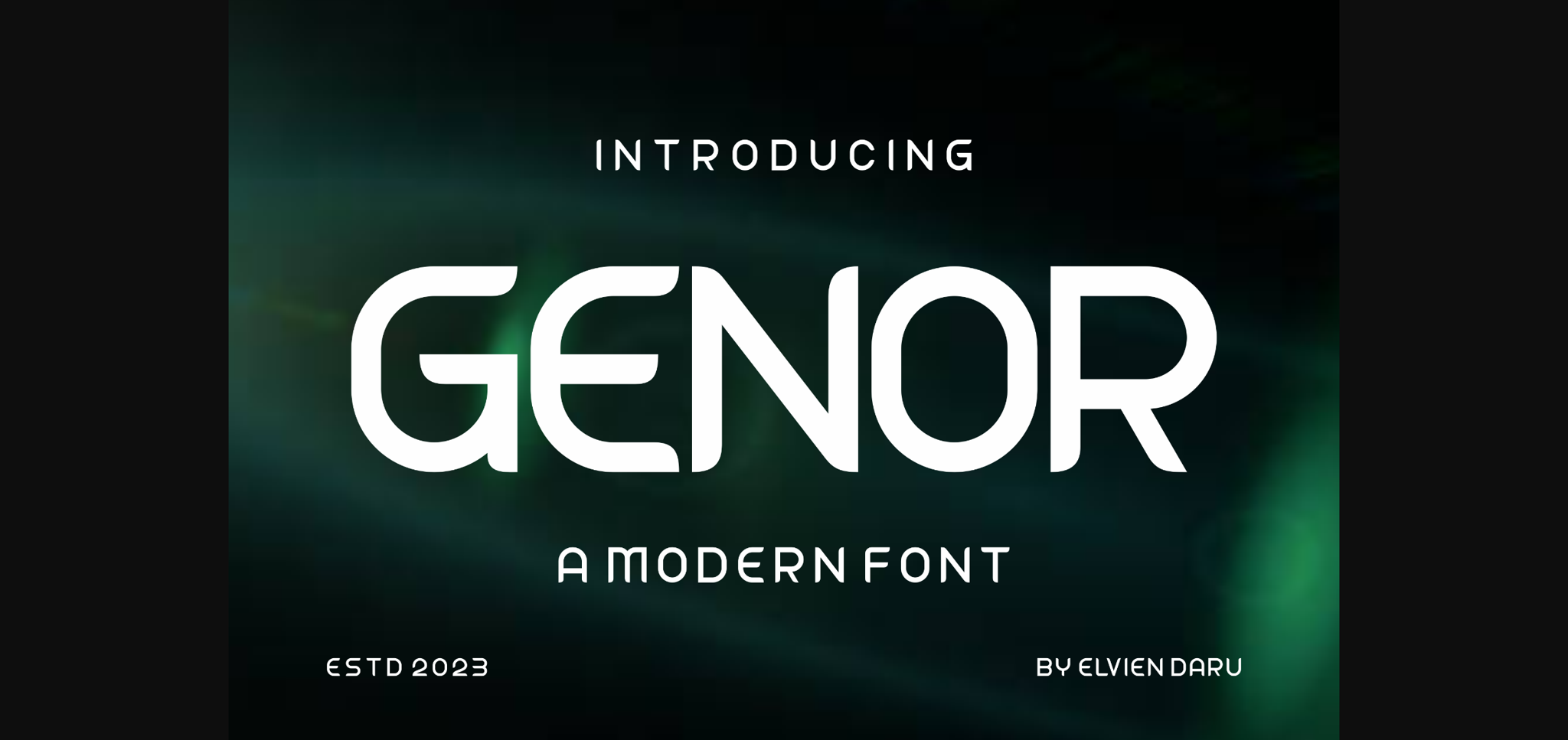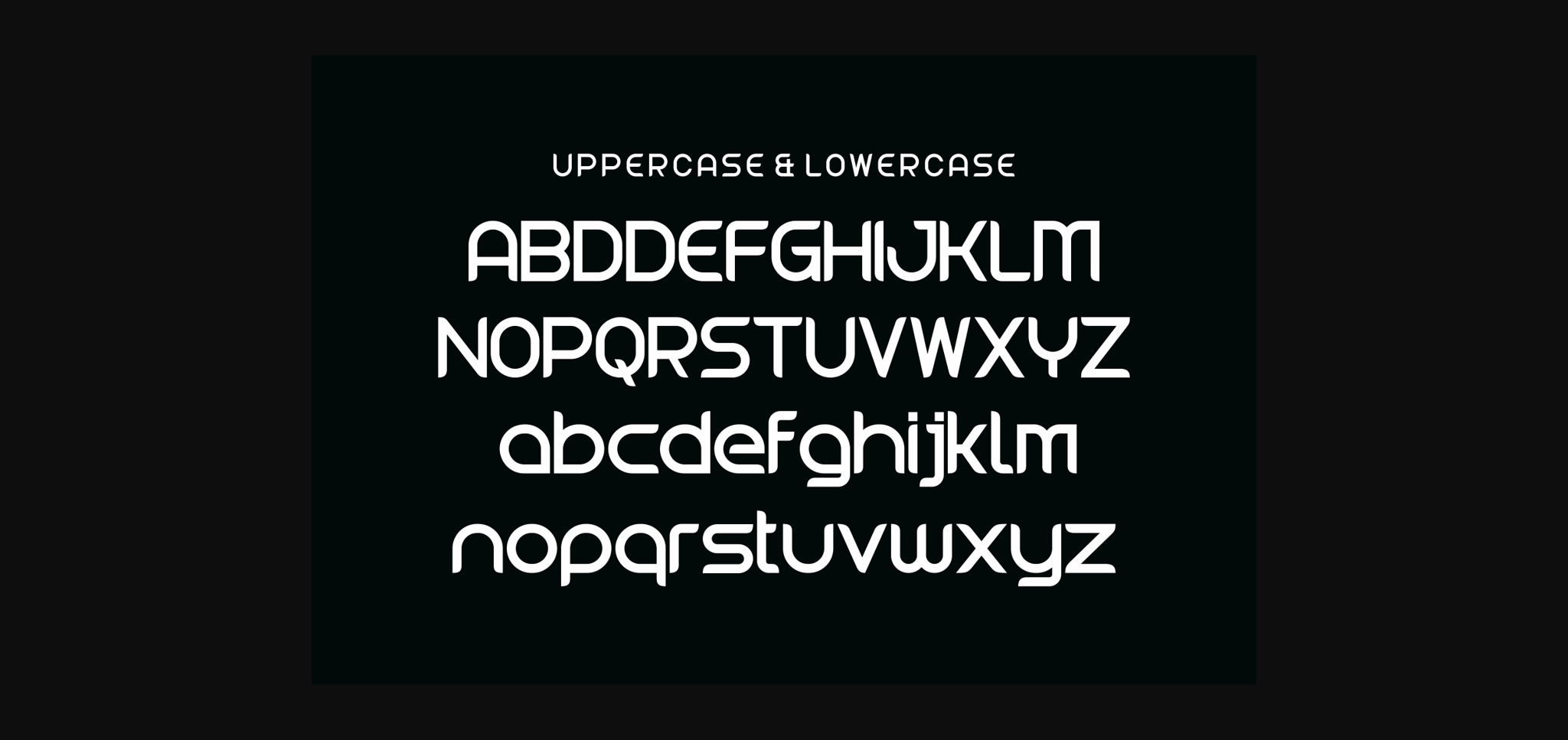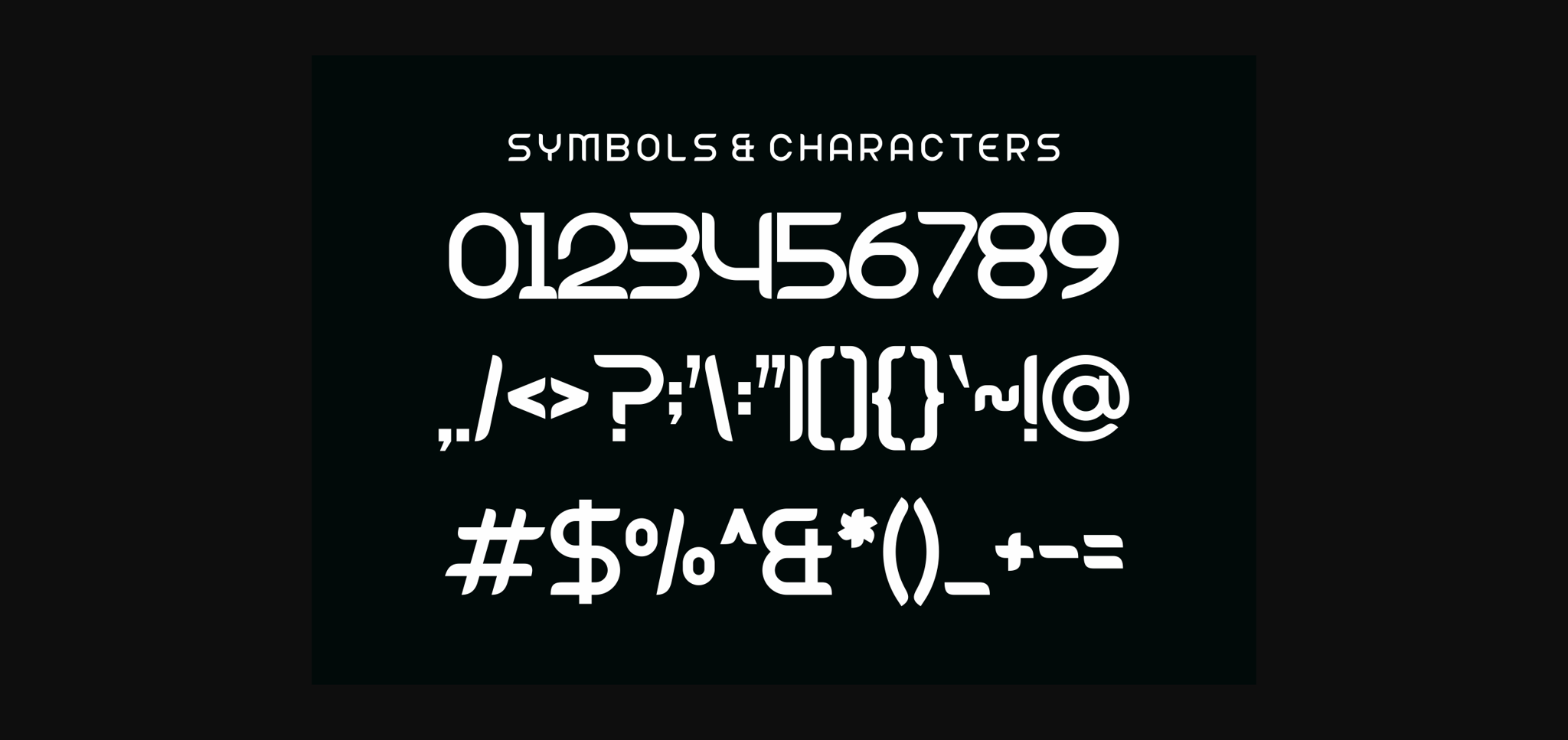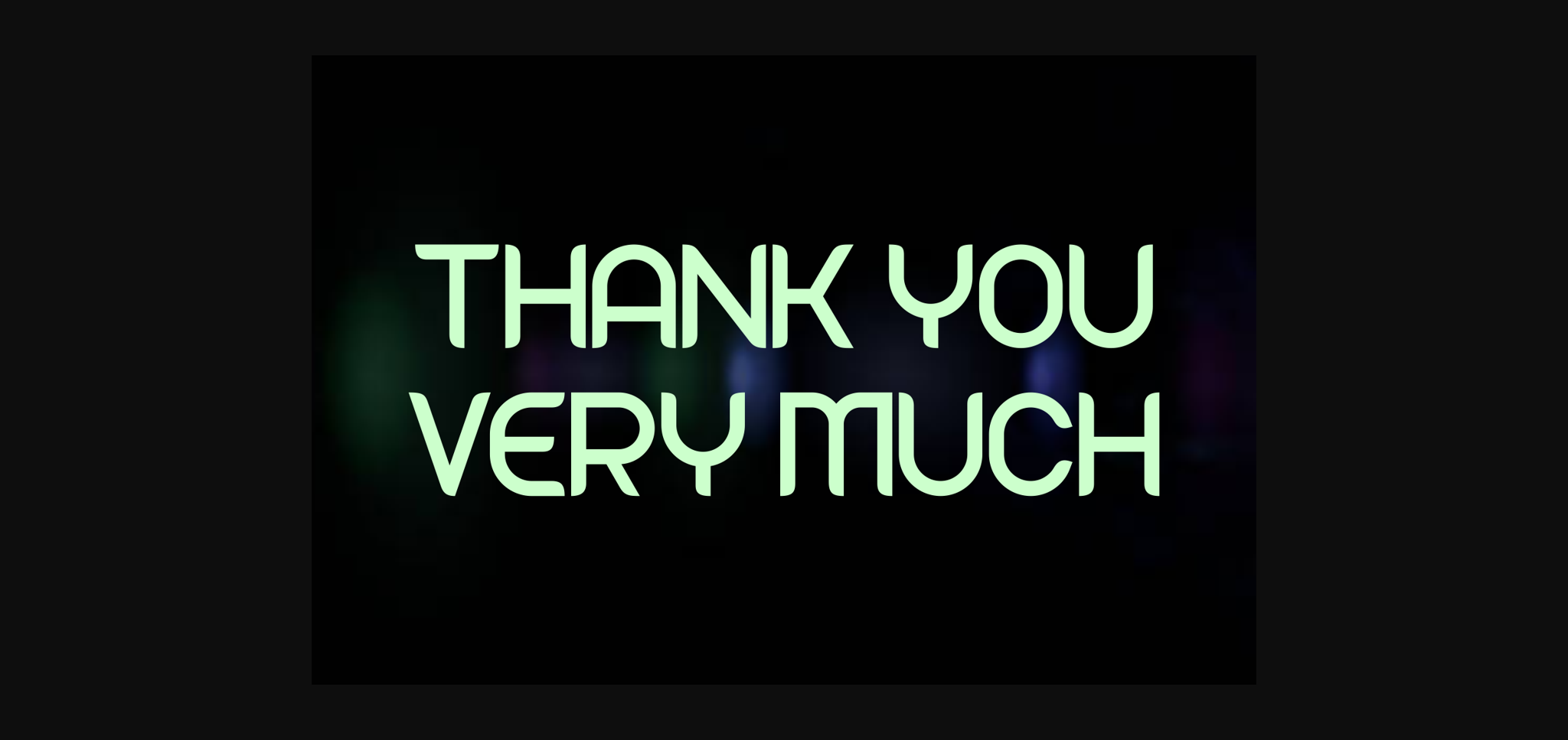
Genor Font
About Genor Font
Genor is an incredibly unique display font. Masterfully designed to become a true favorite, this font has the potential to bring each of your creative ideas to the highest level!